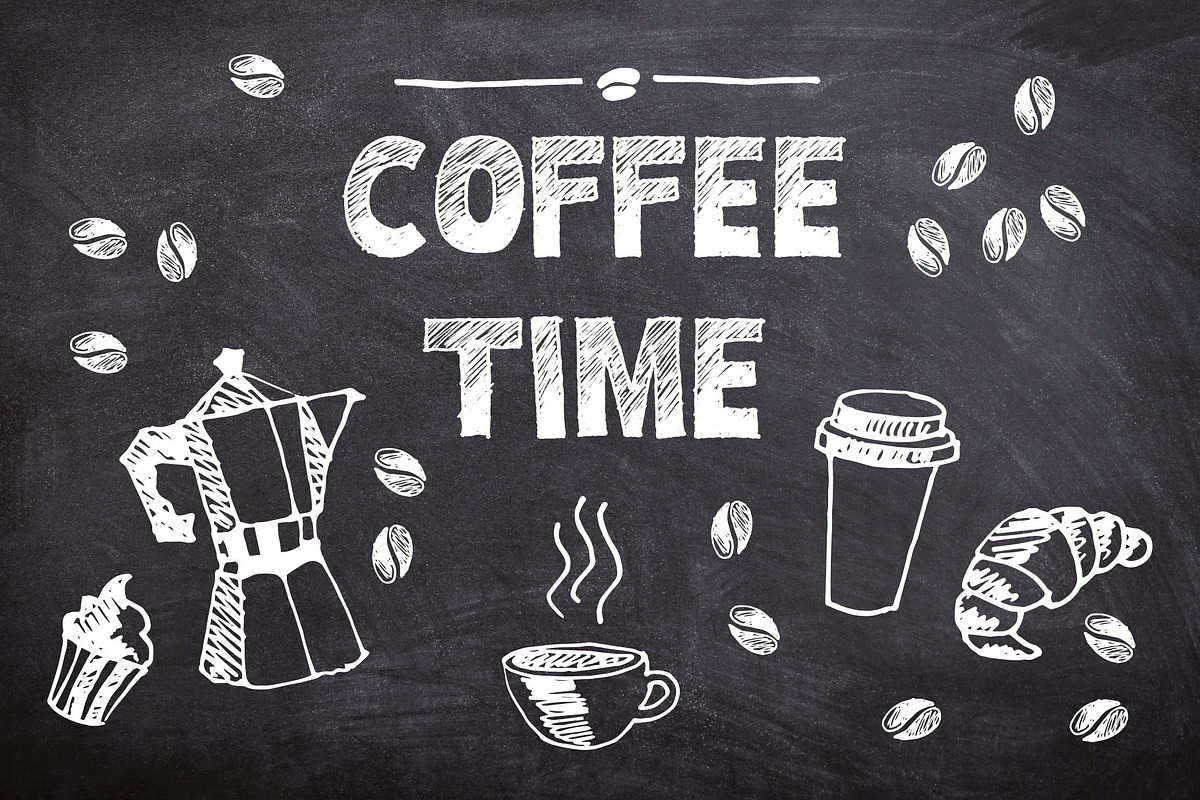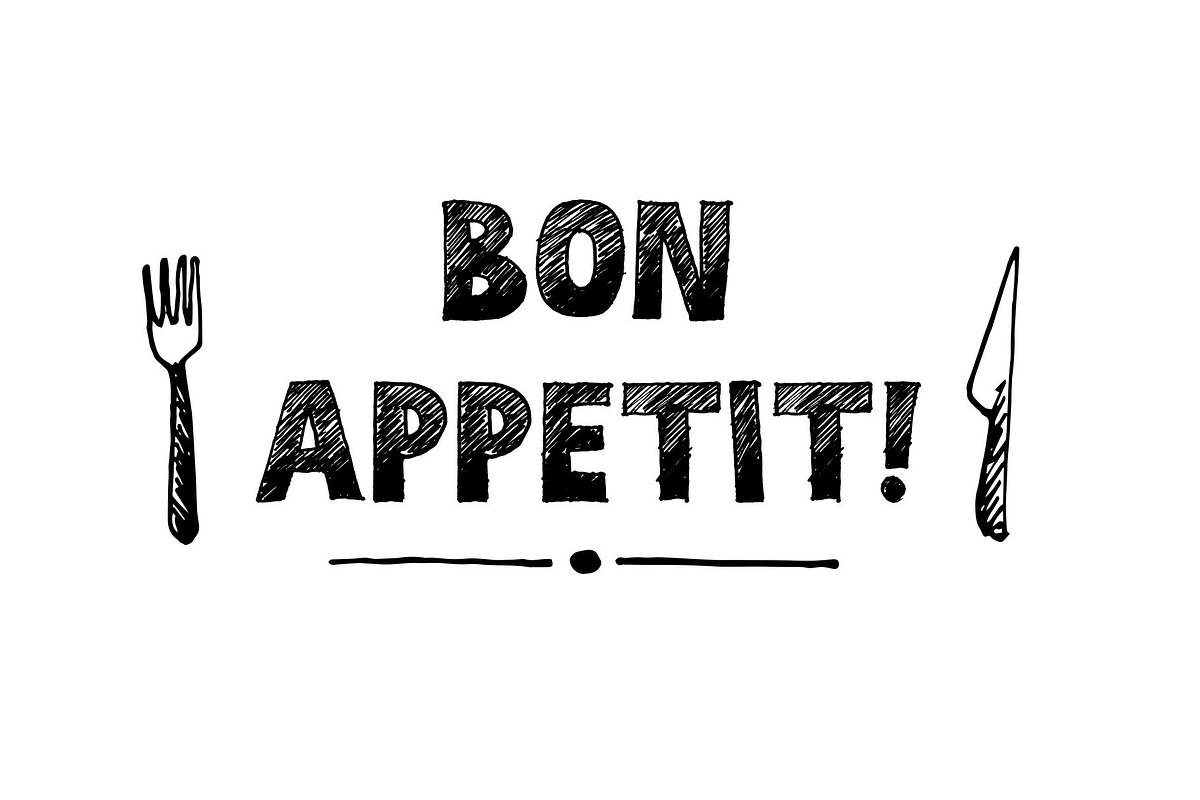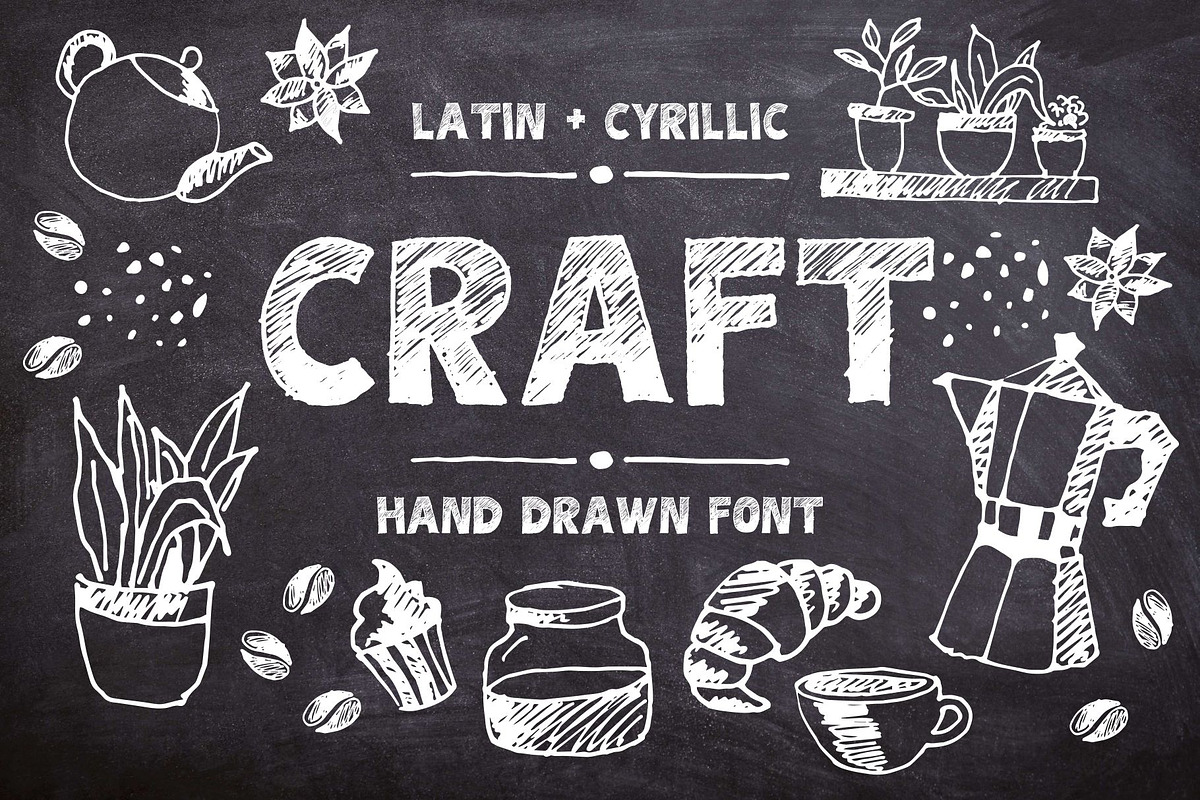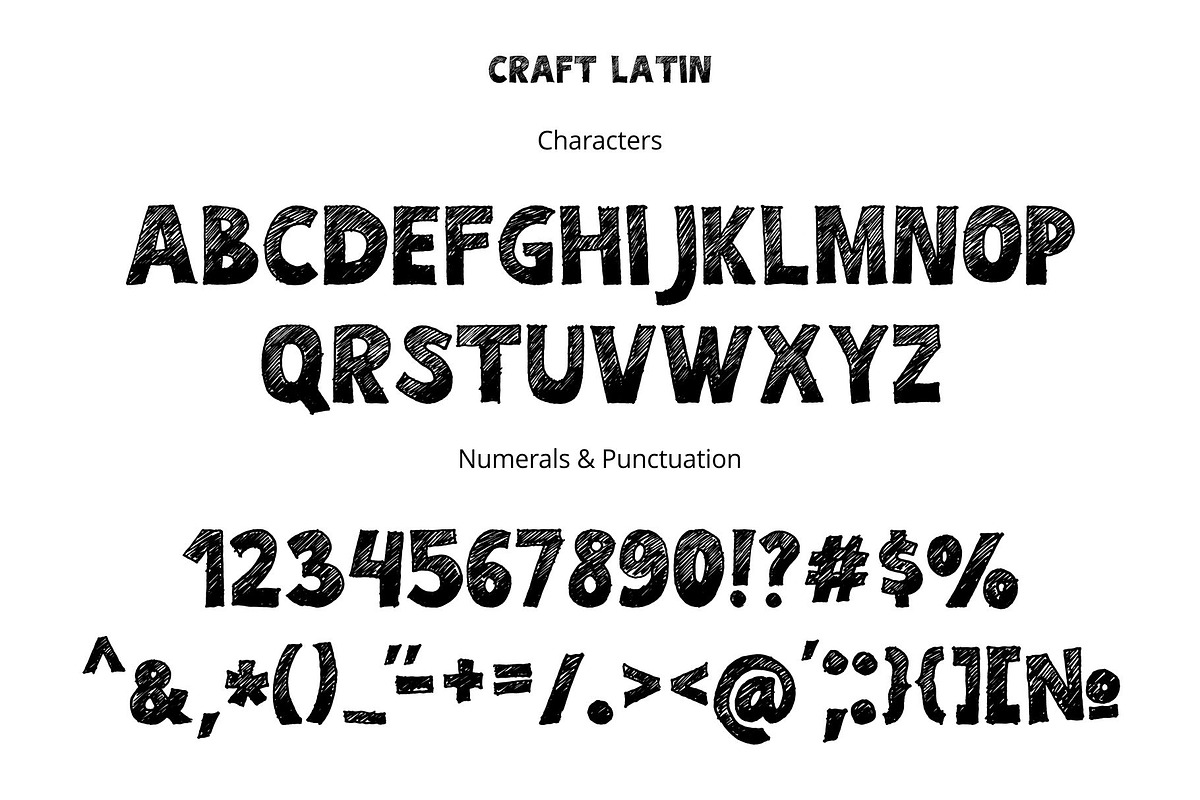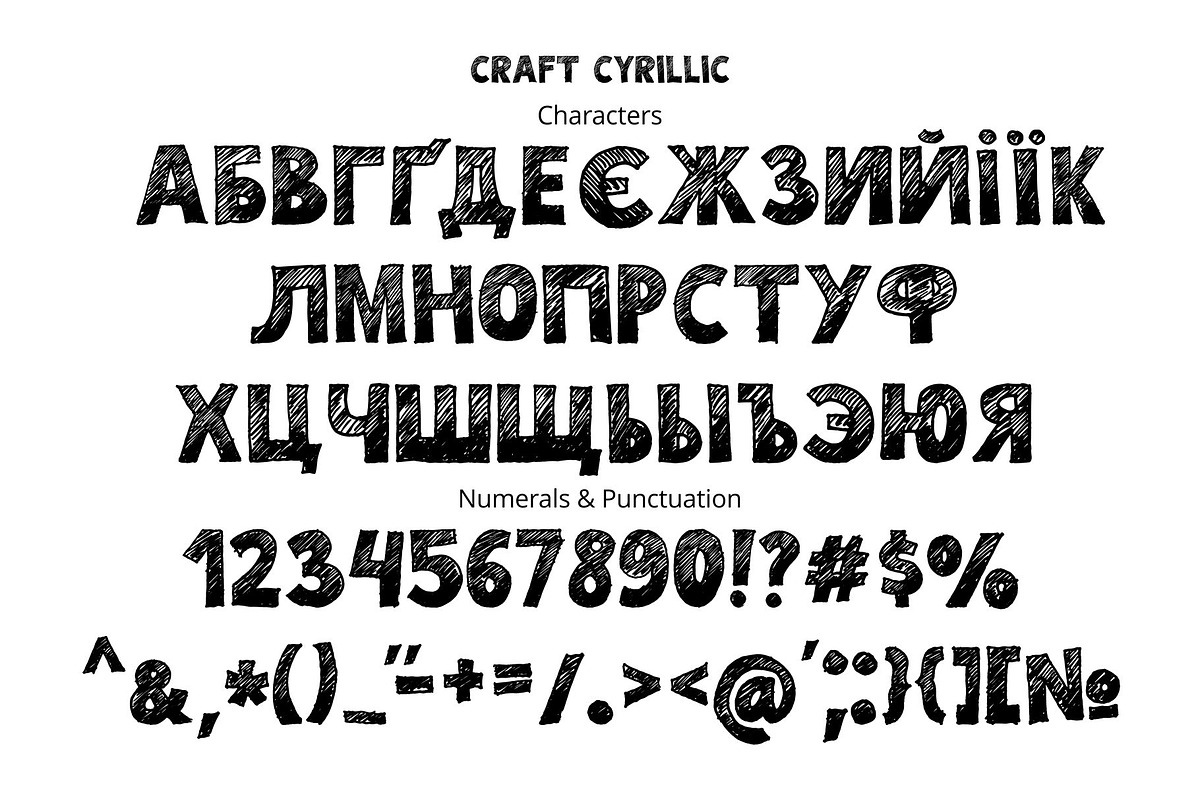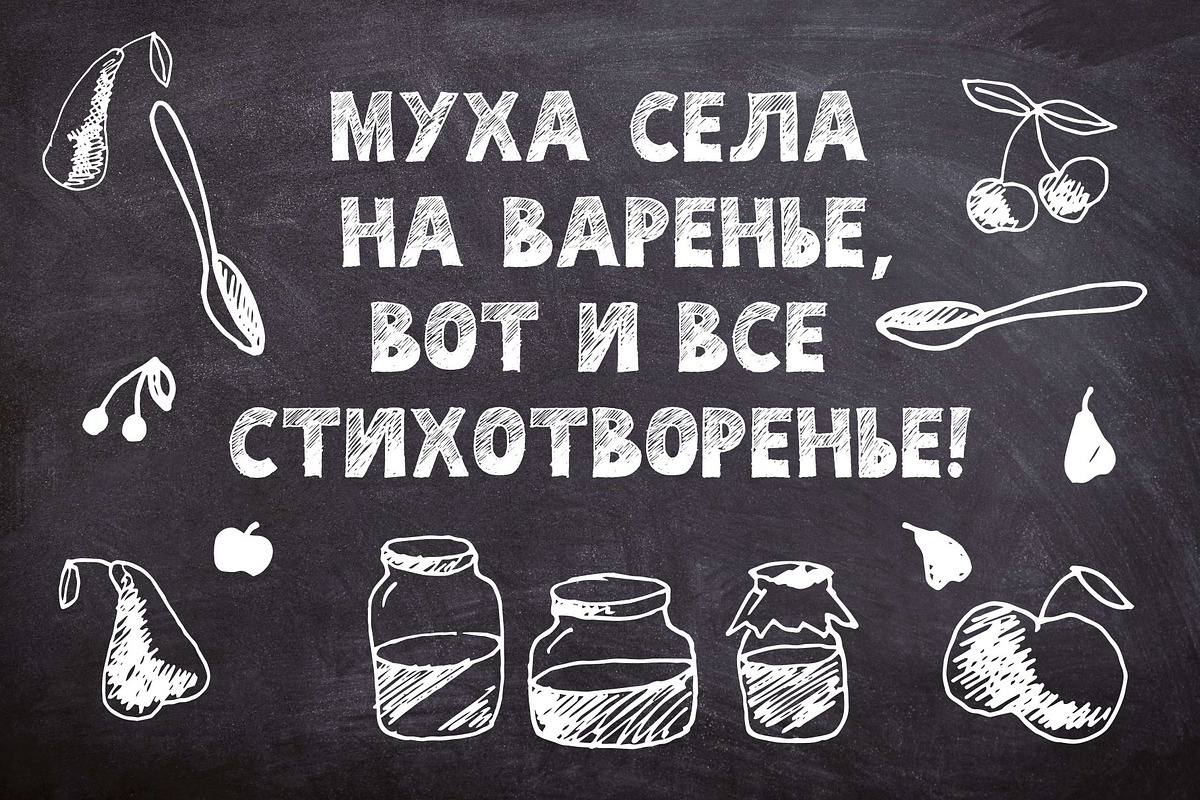
Craft font
I'm glad to present you my new hand drawn font – CRAFT with latin and cyrillic letters! CRAFT font contains latin and cyrillic letter sets, numerals and punctuation. This font work nicely for all sorts of things including t-shirt design, typographic art, social media images and so much more!
Font features: Standard characters A-Z, 0-9, and punctuation for the Latin Basic and Western European set, Cyrillic А-Я set. Enjoy!
- CRAFT font contains latin and cyrillic letter sets, numerals and punctuation.
Craft font by Malena fits naturally into Branding, posters, packaging, typography.